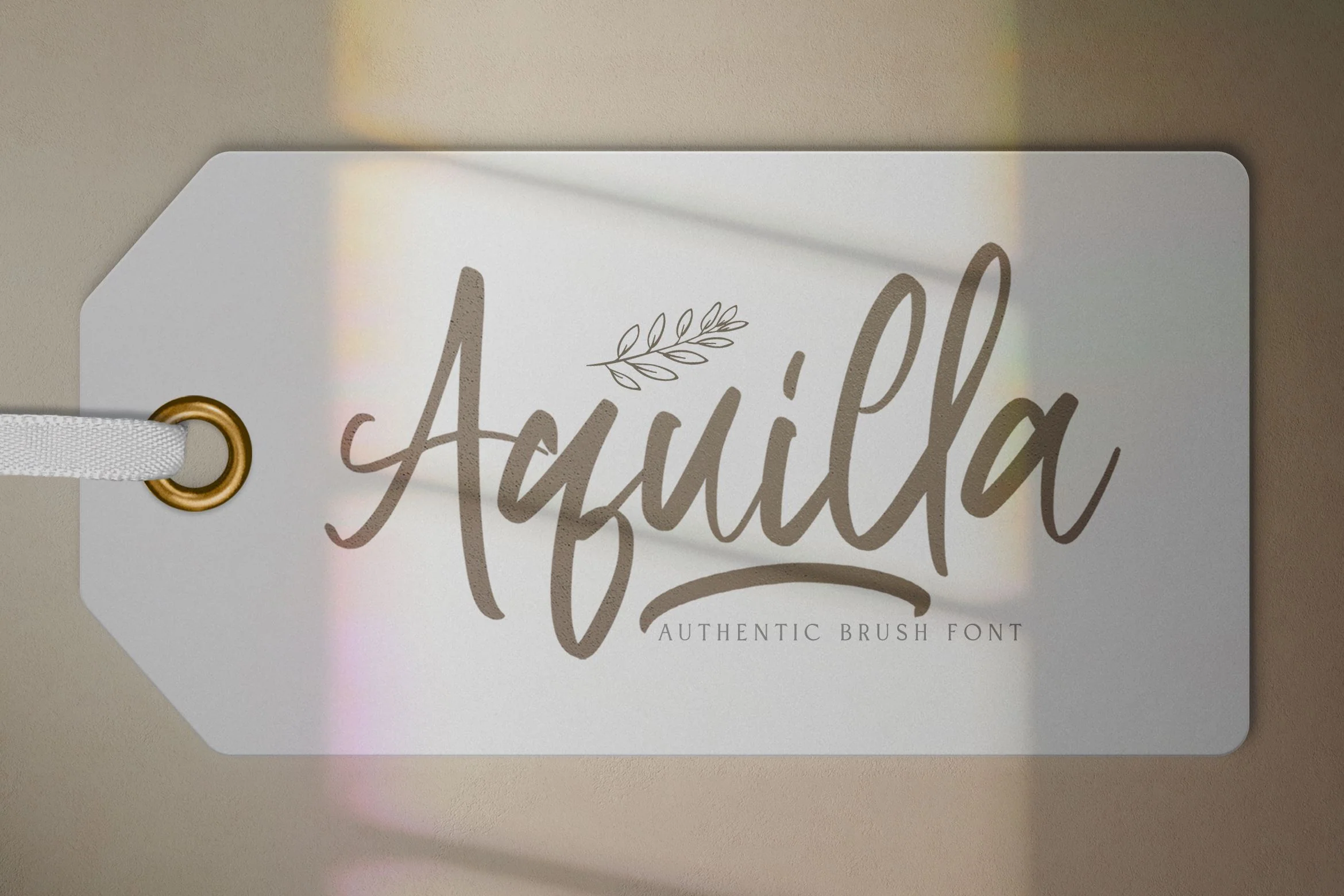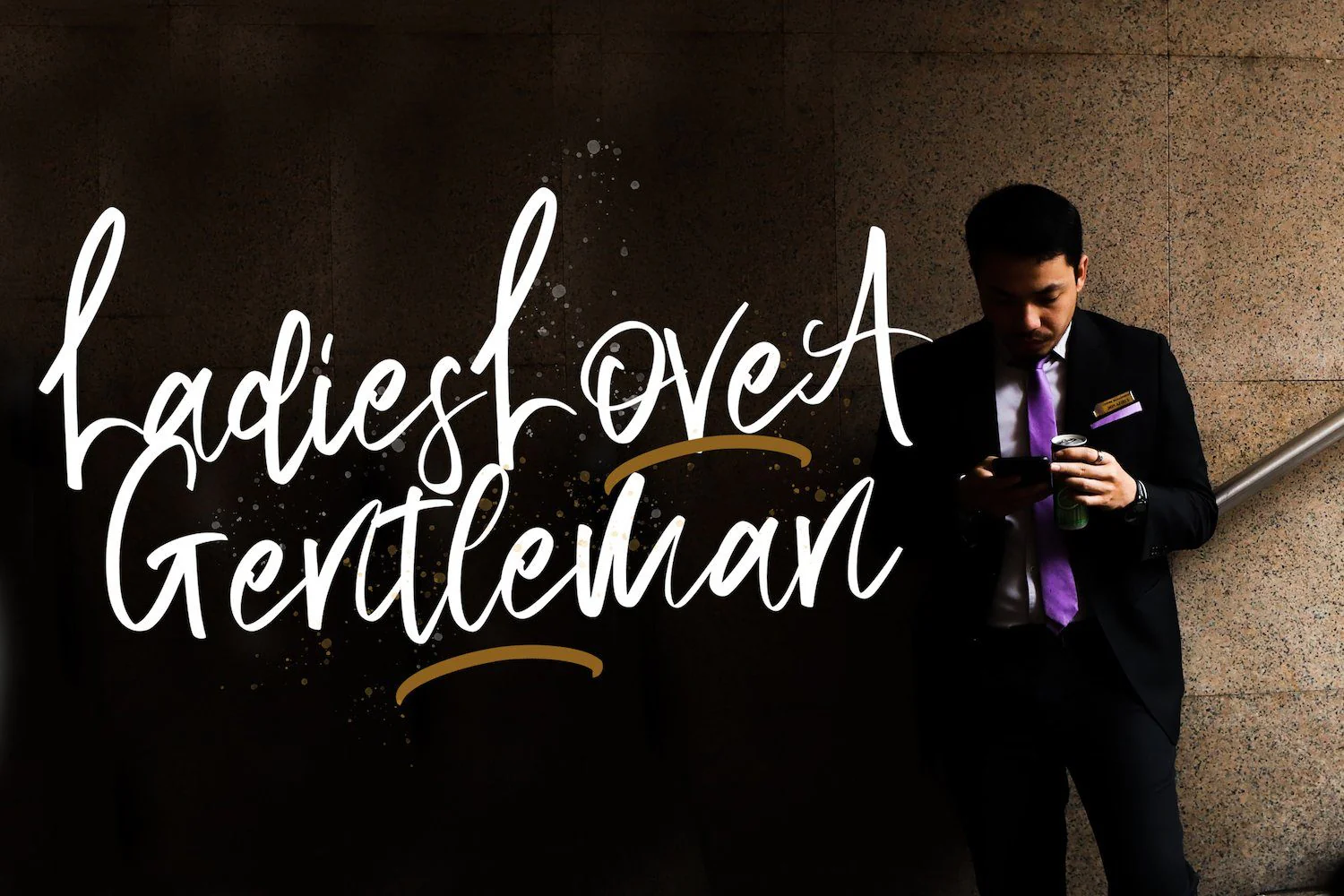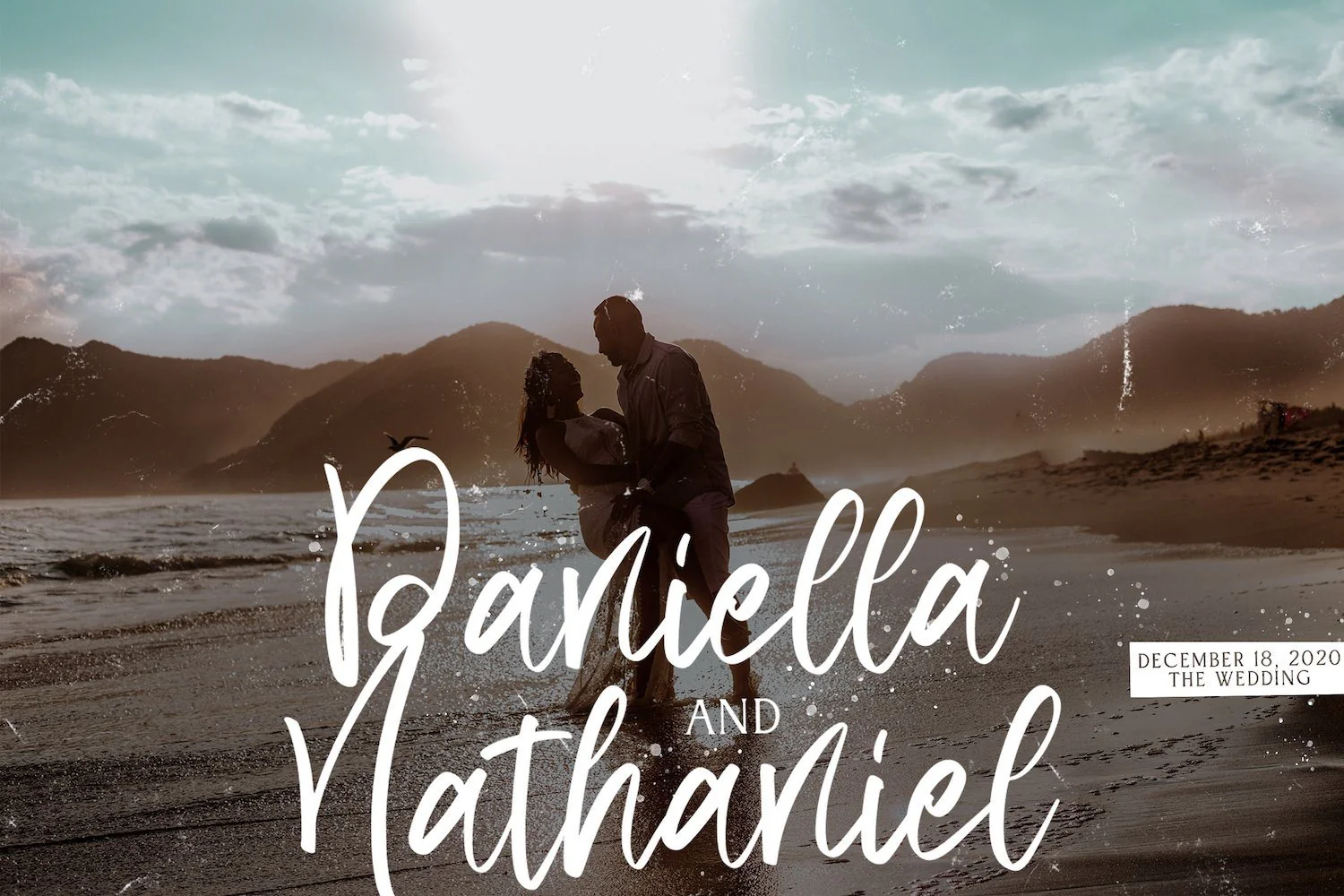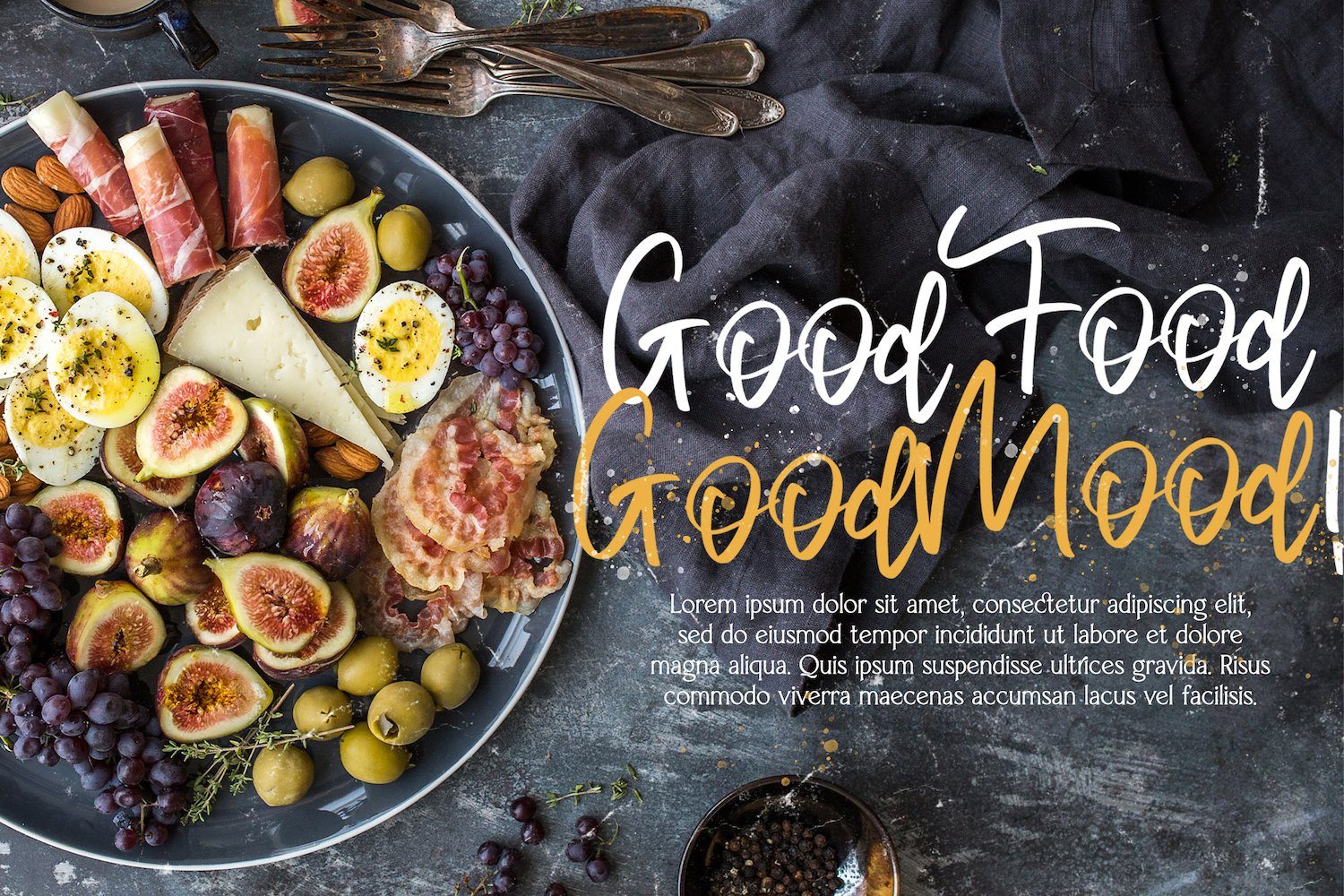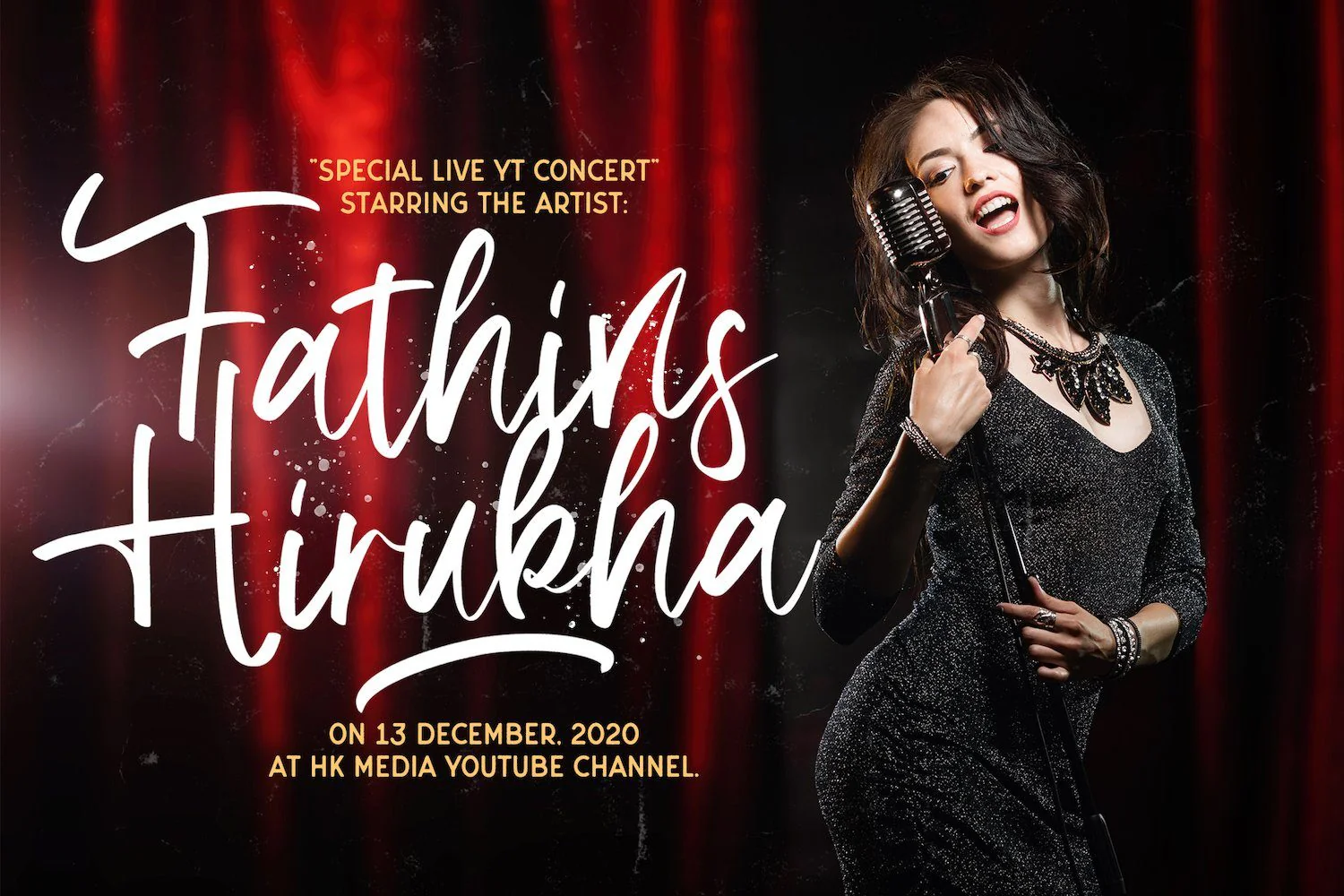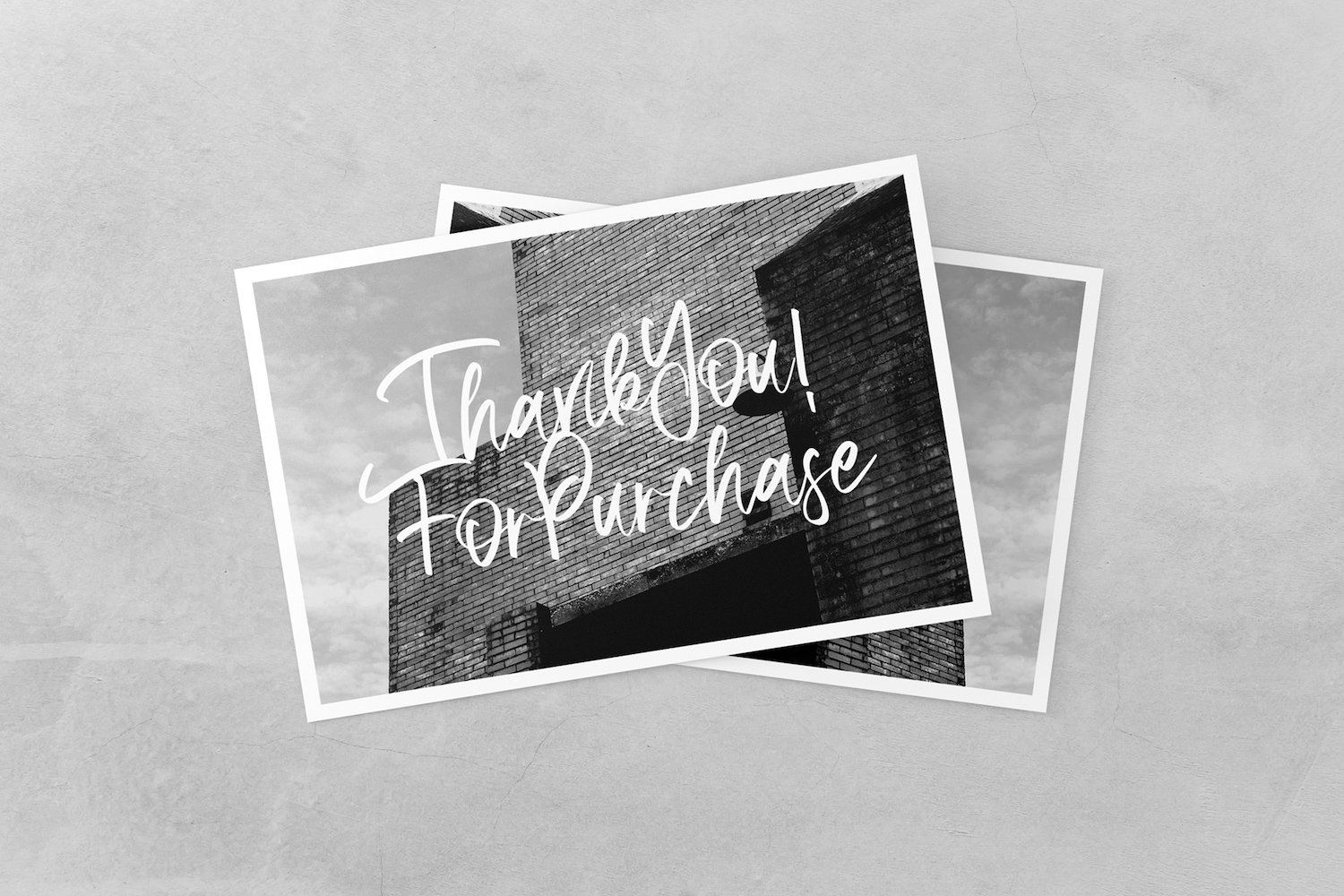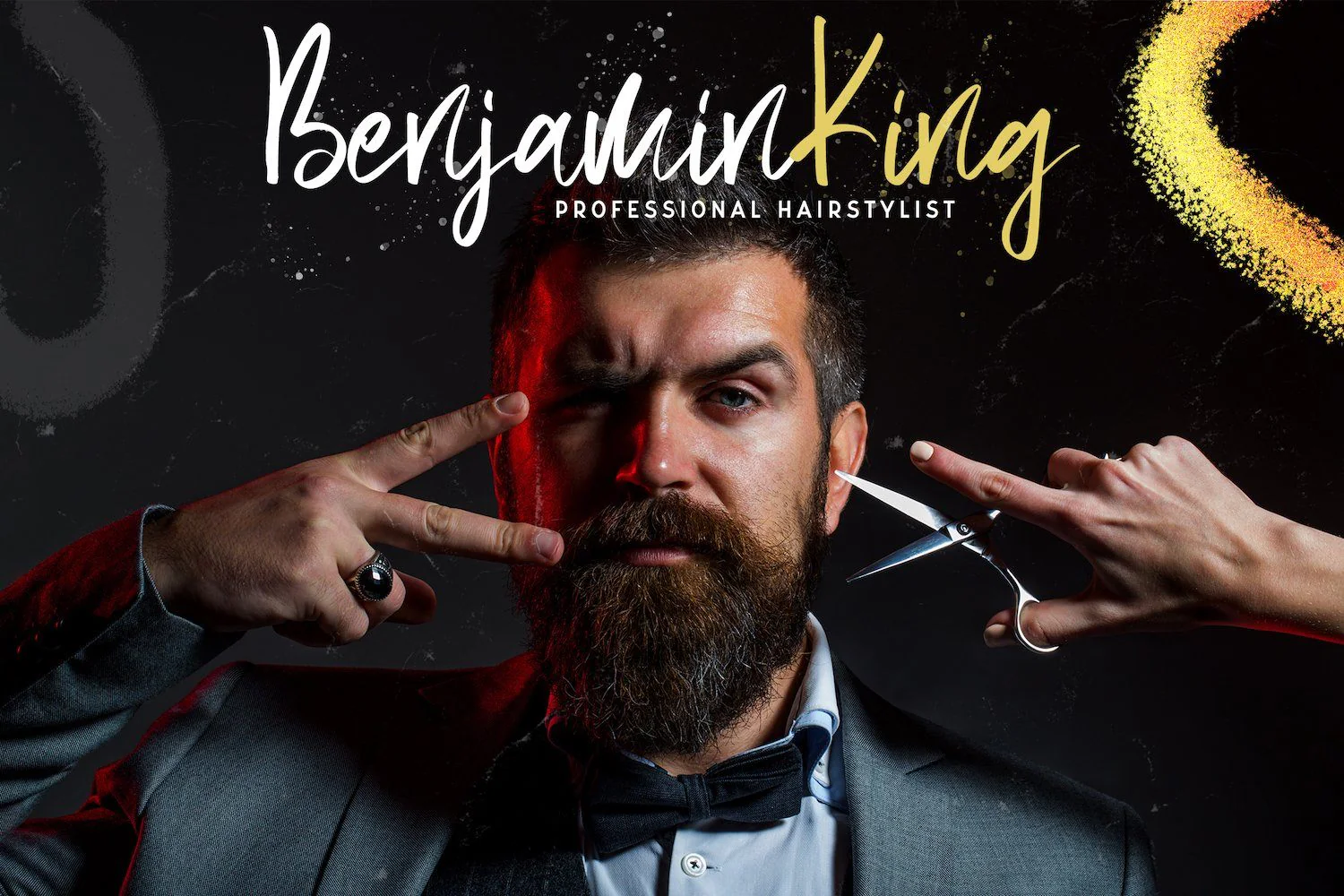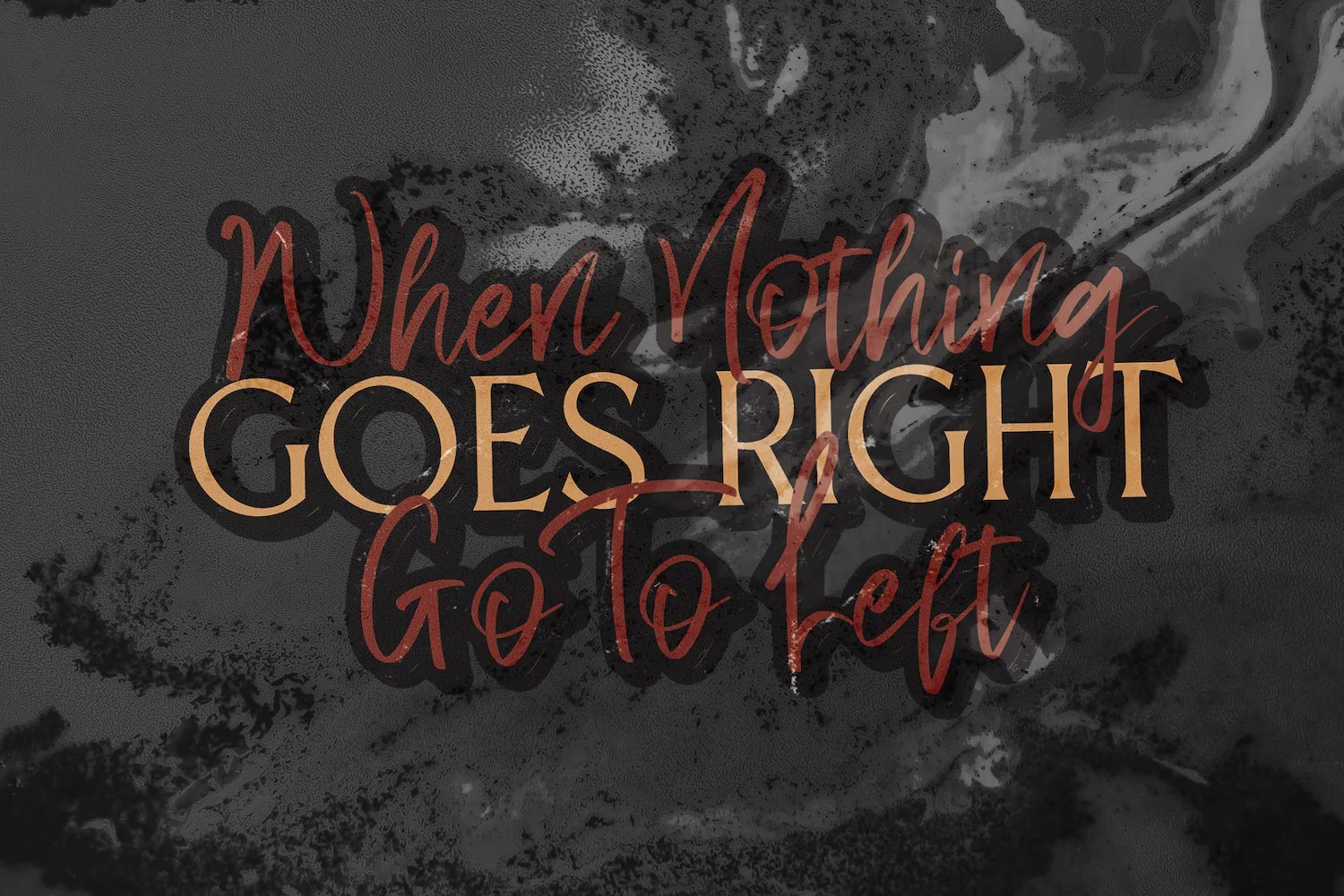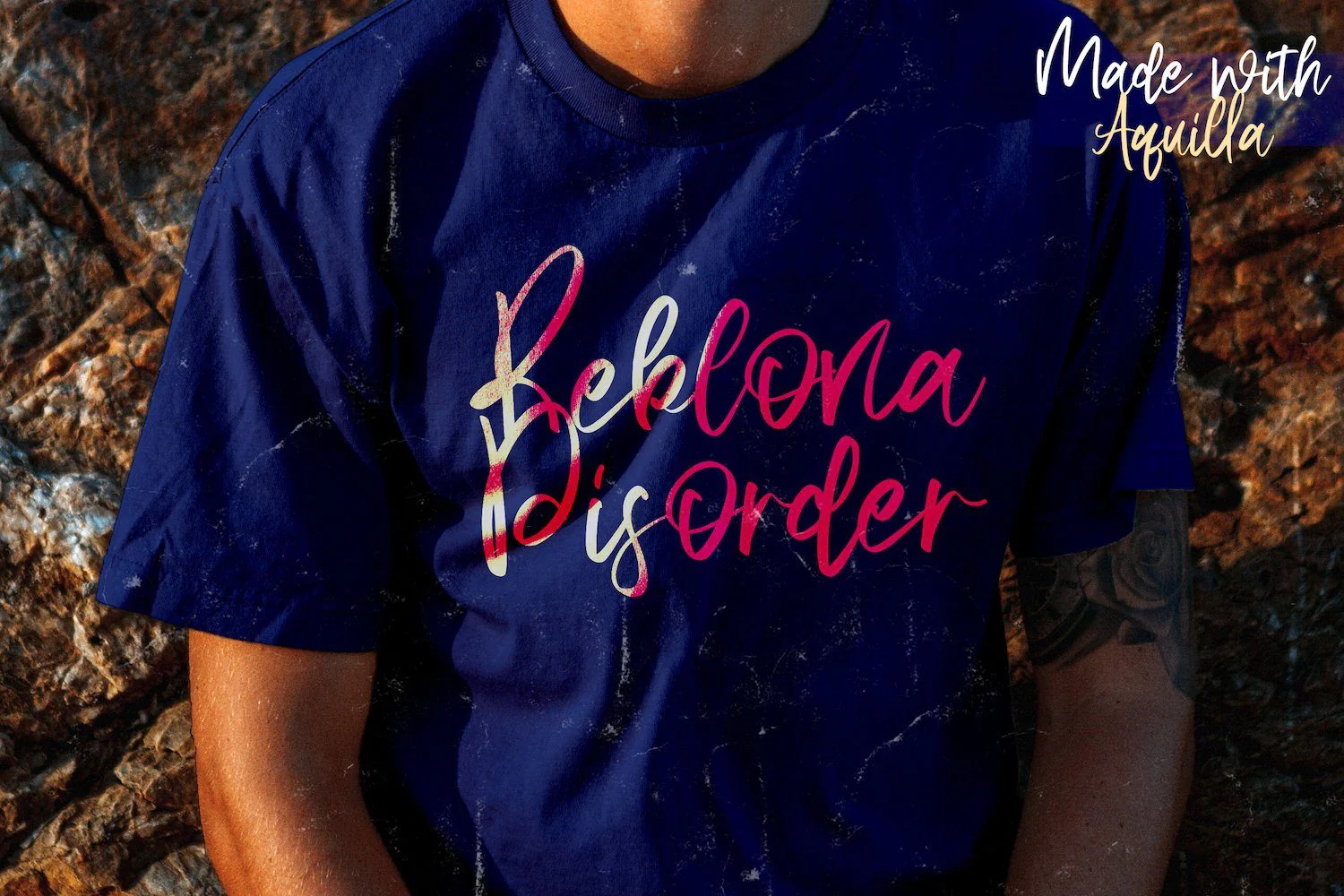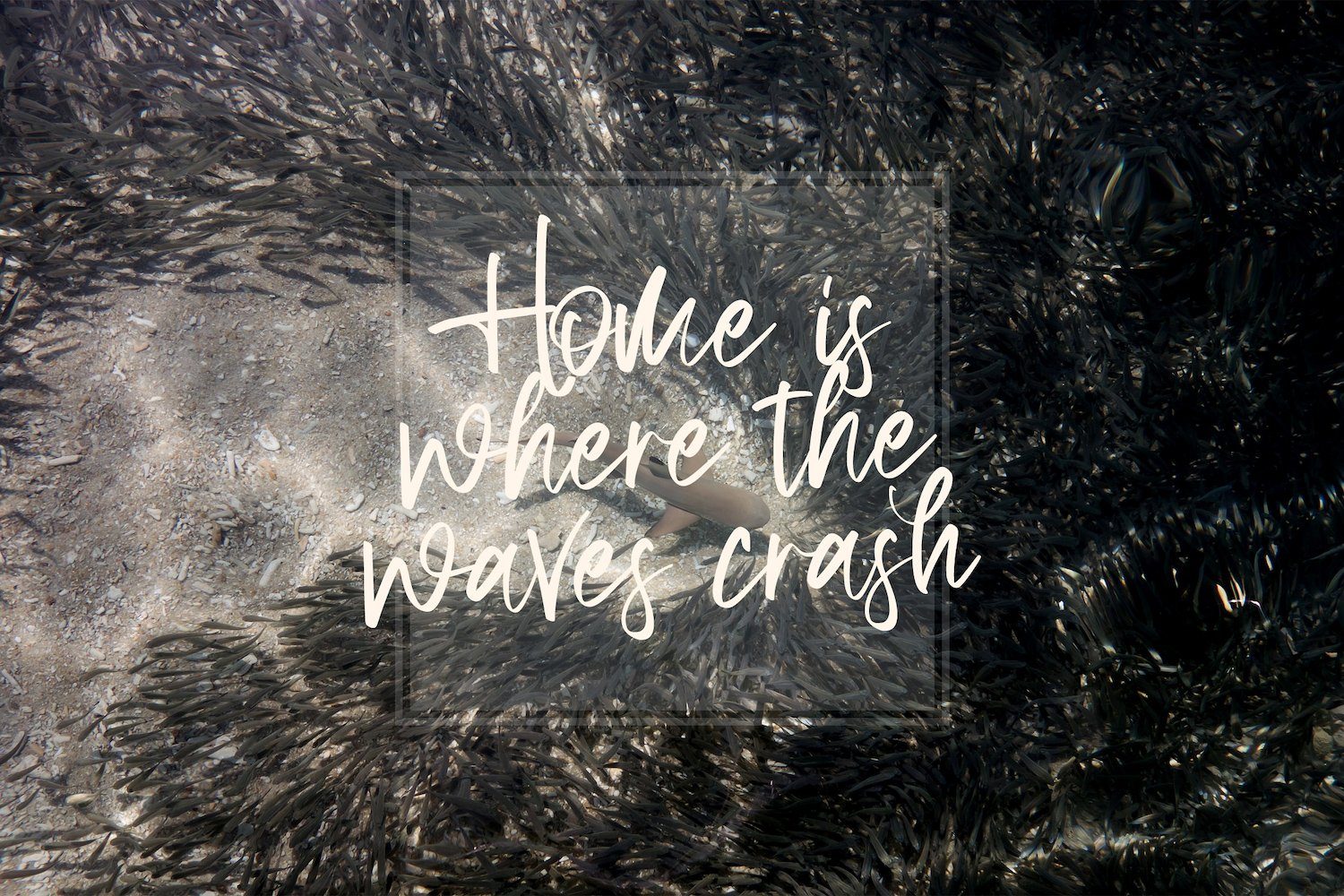
Aquilla - Brush Script Font
Introducing Aquilla - Brush Script Font
Aquilla is a flowing and elegant handwritten font, created with the help of a brush pen. Get inspired by its unique and beautiful style and add it to your favorite designs!
- Stylitic Alternates
Introducing Aquilla - Brush Script Font
Aquilla is a flowing and elegant handwritten font, created with the help of a brush pen. Get inspired by its unique and beautiful style and add it to your favorite designs!
- Stylitic Alternates